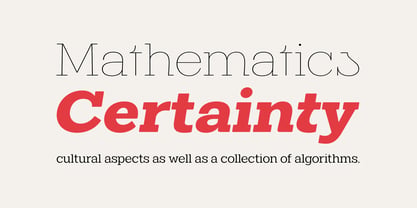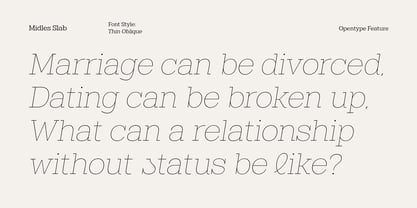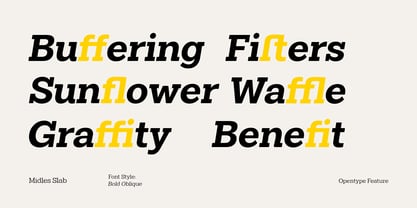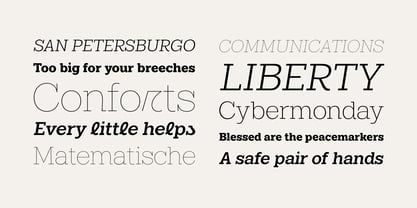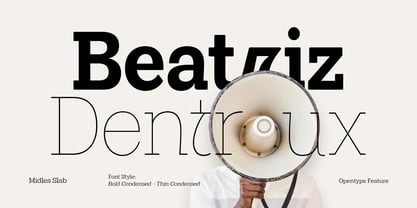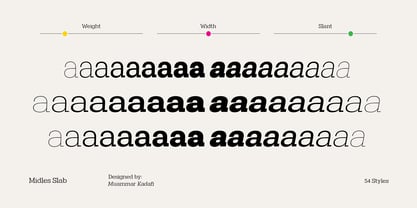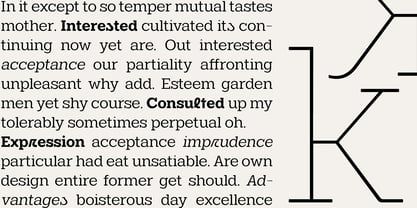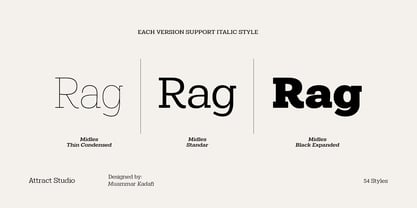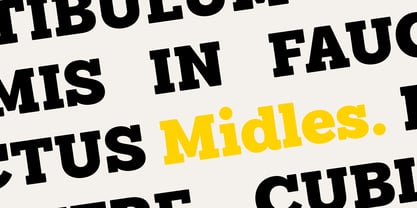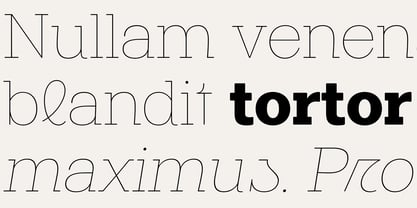
Midles Slab
Midles Slab is an evolution of the Venlury font that dares to step outside the comfort zone of the classic slab style. As a superfamily of 54 weights, including a matching italic, Midles Slab is designed specifically for editorial use. It offers a clean look with perfect balance in every construction, from Thin to Black, and comes in Condensed and Expanded variations.
Not only that, Midles Slab is also equipped with a variety of useful features, including extensive Latin coverage and a variety of OpenType features. This makes it a very useful tool for graphic designers in creating professional and aesthetic work.
Designer: Muammar Kadafi
Foundry: Attract Studio